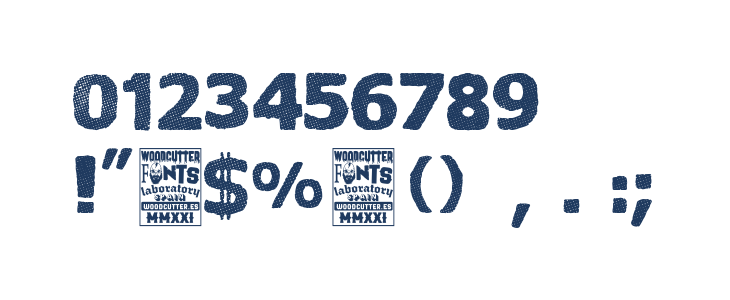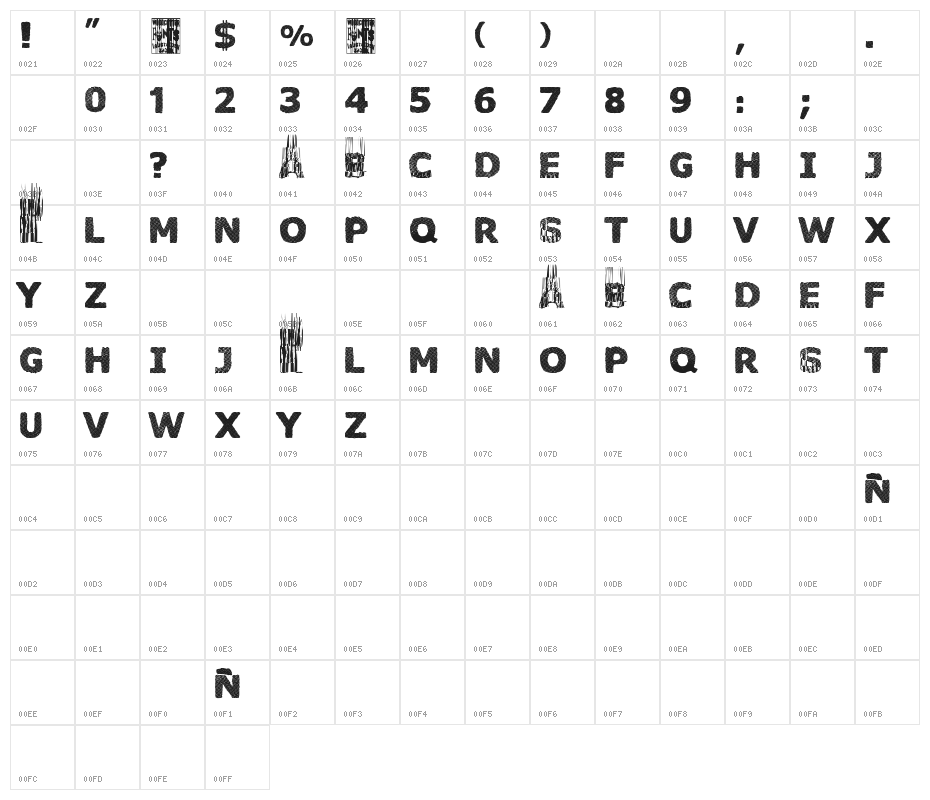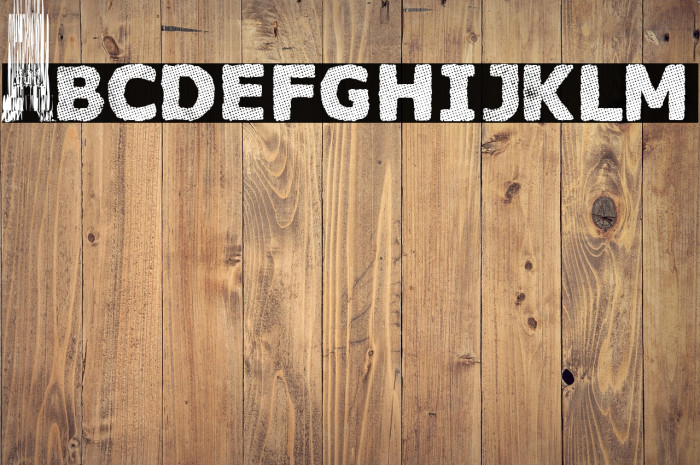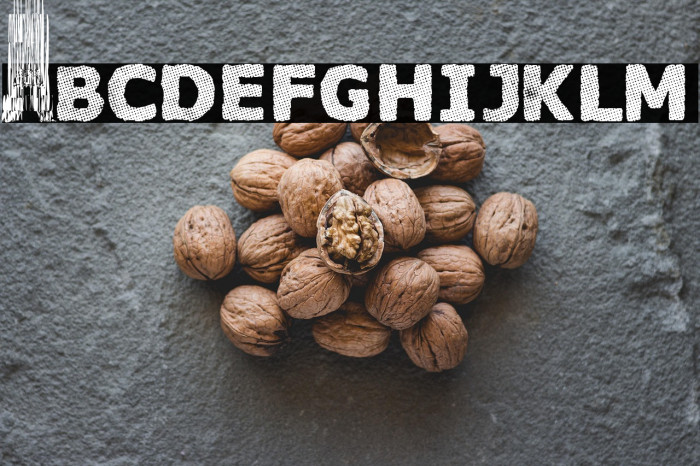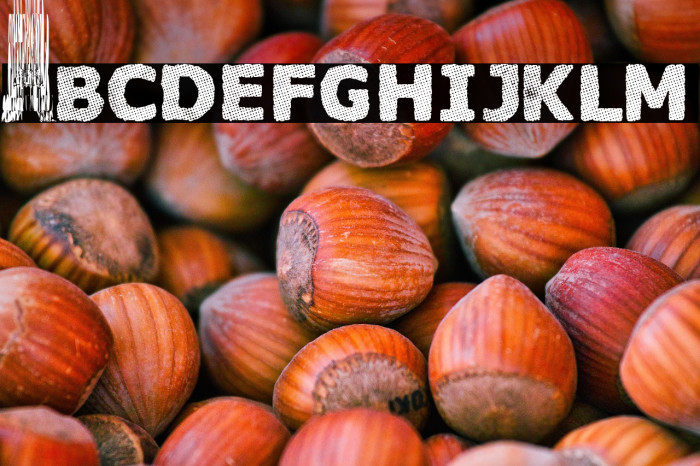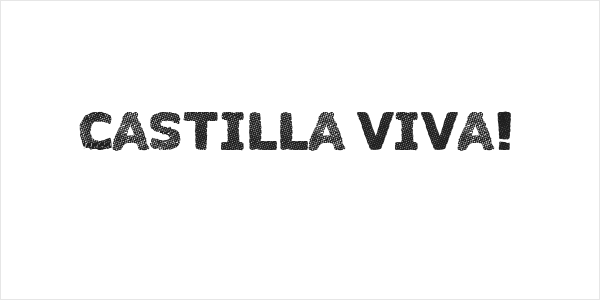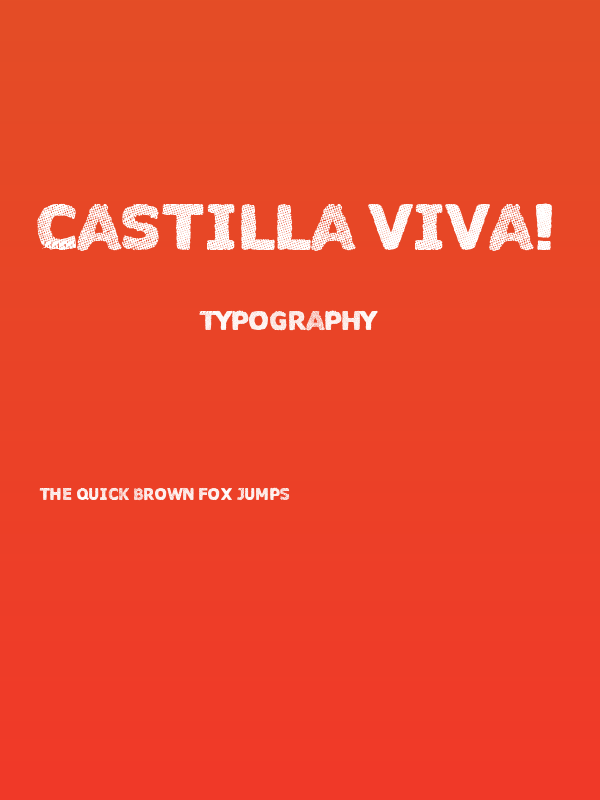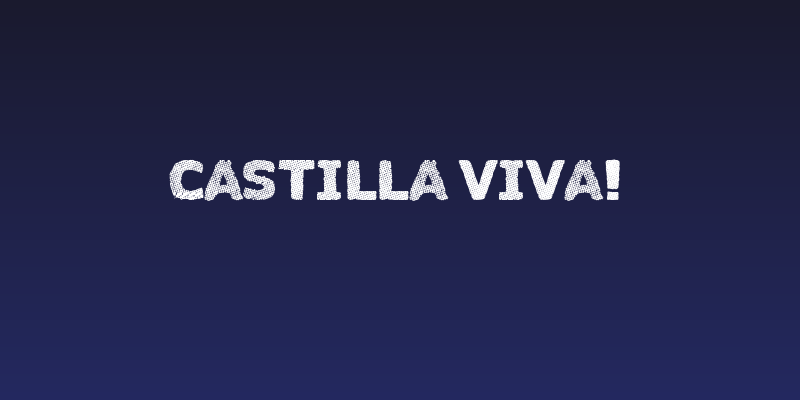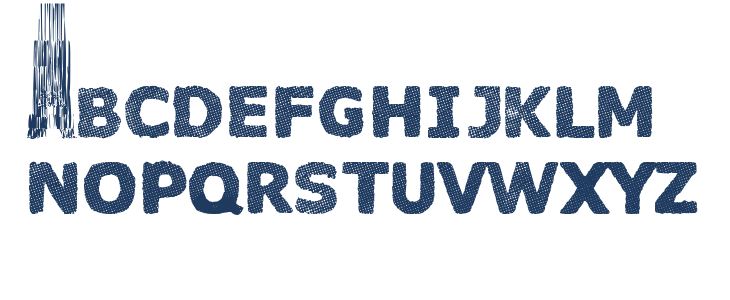
Castilla Viva! Font
Castilla Viva! Description
This font features a bold, textured design with a distinct dotted pattern that gives it a unique, handcrafted appearance. The uppercase letters are robust and impactful, making them ideal for attention-grabbing headlines. The numbers and special characters maintain the same textured style, ensuring consistency across all elements. The font's playful yet bold aesthetic makes it suitable for creative projects that require a strong visual presence. Its decorative nature is enhanced by the irregularities in the texture, adding a sense of dynamism and movement.
Proposed ProjectsIdeal for posters, branding, packaging, and any project that requires a bold, artistic touch.